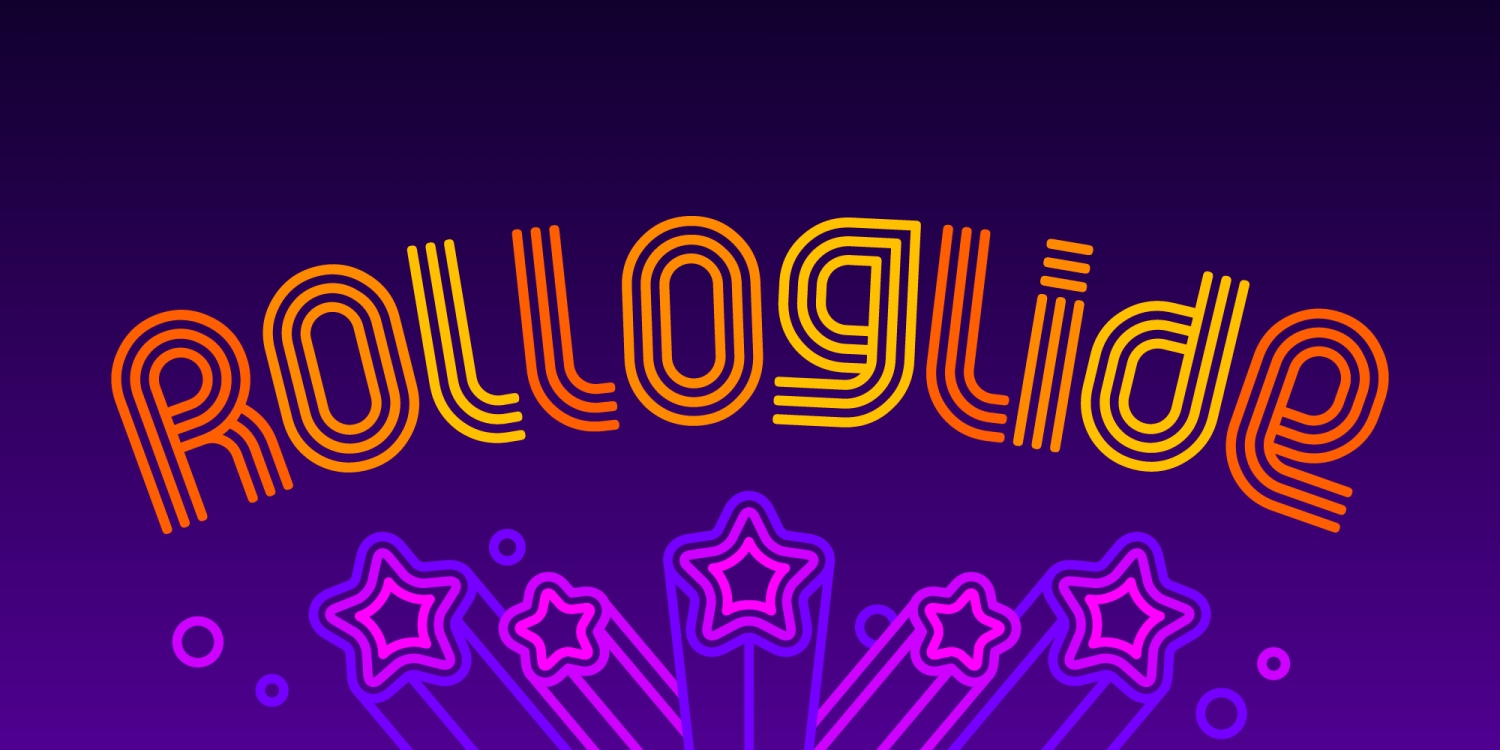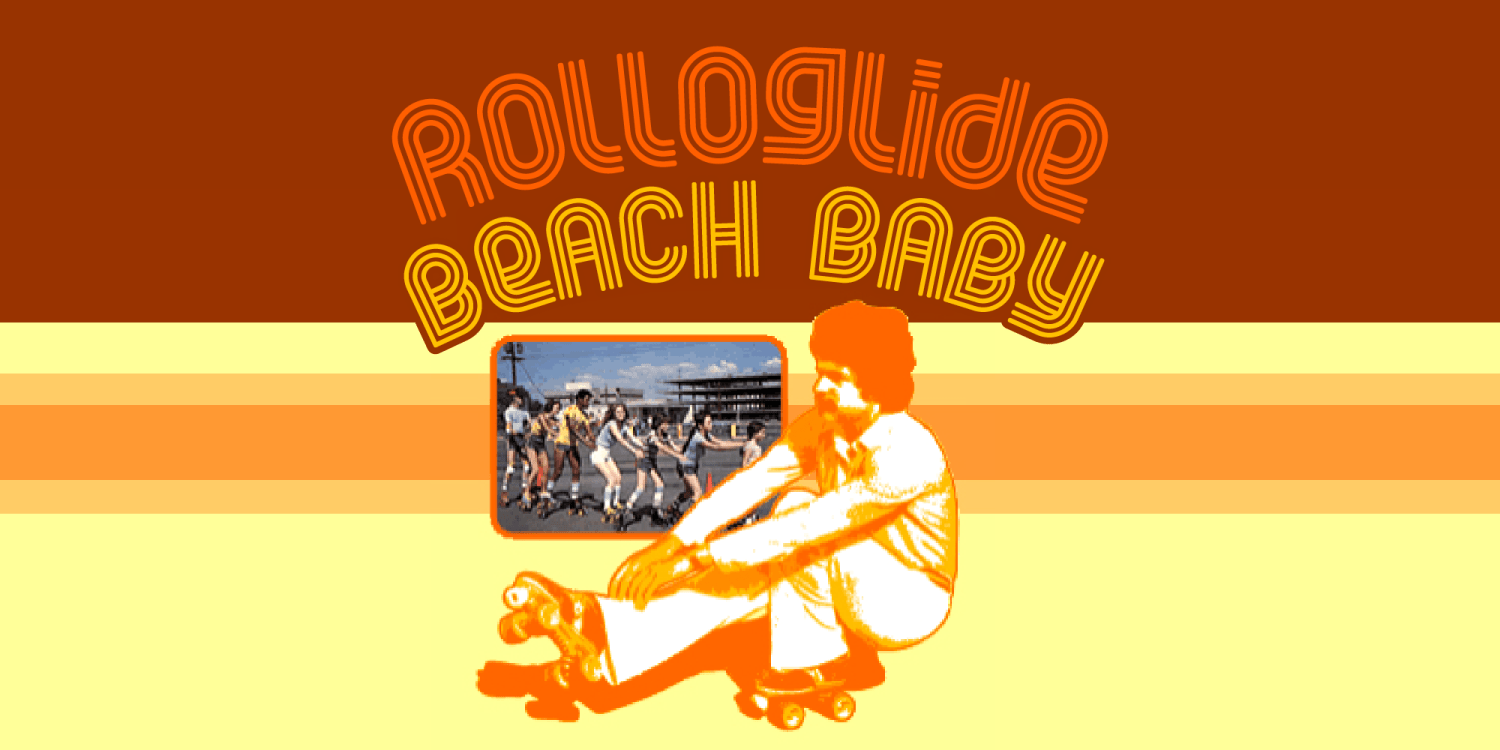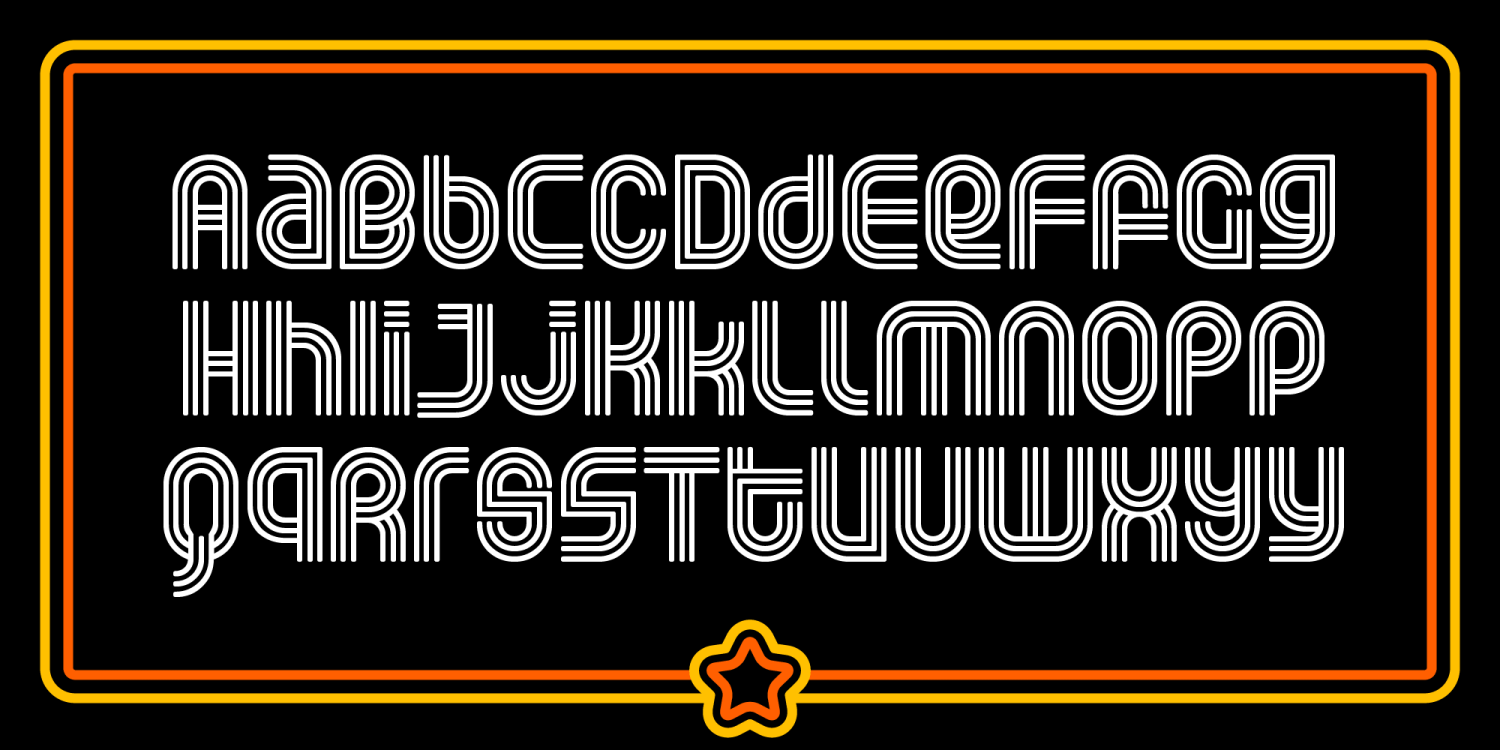
Super seventies stylie with a bit of Font-a-licious charm thrown in and VOILA! Here comes Rolloglide! A snazzy font that won't teach you how to "shoot the duck" or master the "russian splits", but it will totally help you design something far out!